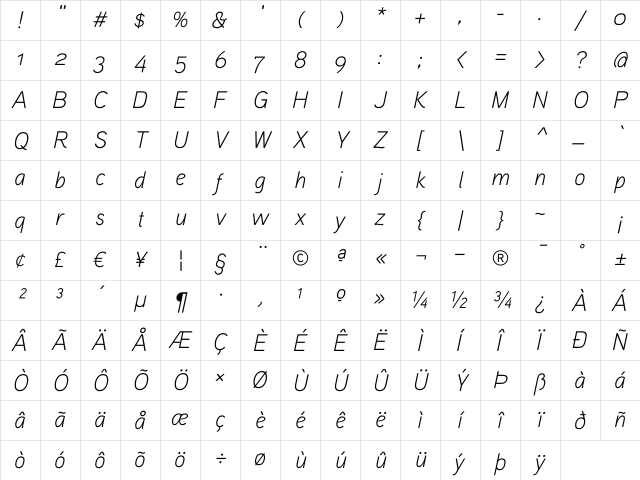
Aaux ProLight Italic OSF Regular
Design Context for Aaux ProLight Italic OSF
Aaux ProLight Italic OSF is a composed and adaptable typeface that performs quietly and consistently across a wide range of design contexts. The slanted form adds forward momentum and visual energy. Its slender proportions lend an understated elegance to any composition.
Pro Tip: Use Aaux ProLight Italic OSF for emphasis, pull quotes, and subheadings where its slanted energy can add rhythm to the layout.